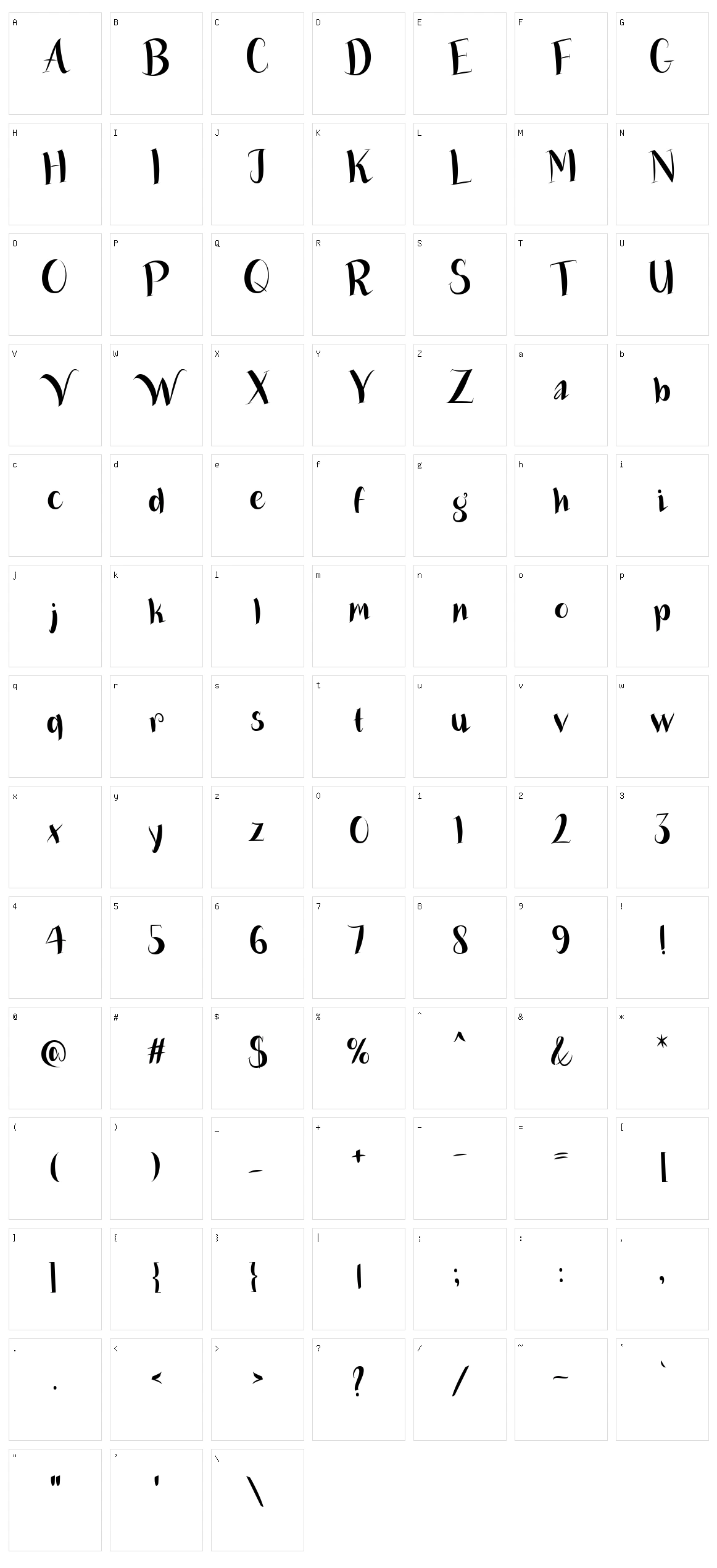
The free font Vampire Bite is carefully designed by Misti's Fonts, showcasing a thoughtful balance of creativity and usability and falls under the Halloween font style. When you download the ZIP file, it contains only 223.75 KB of font files, making it lightweight and quick to download. Please review the license details below to understand permitted usage and distribution rights. If license information is not available, we recommend using this font for personal projects only or contacting the author directly for commercial usage permissions.